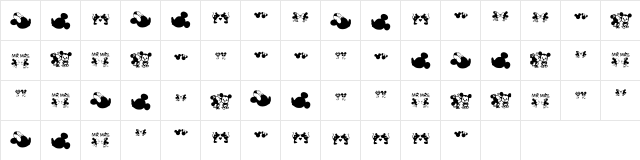
Mickey Love Regular
Design Context for Mickey Love Typeface
Mickey Love is a composed and adaptable typeface that performs quietly and consistently across a wide range of design contexts.